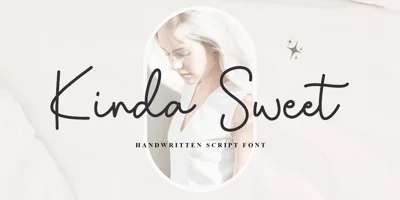
Kinda Sweet Font
Kinda Sweet Font is ideal for candy shop branding, bakery window displays, ice cream parlor menus, children's birthday invitations, cupcake business logos, sweet treat packaging, dessert blog headers, candy wrapper designs, valentine's day promotions, sugar confectionery marketing, donut shop signage, and playful lifestyle brands.
This font is exciting because it perfectly captures that irresistible charm and delightful sweetness that makes you smile just like your favorite childhood candy, featuring playful letterforms that bounce with the same cheerful energy and innocent joy found in sugar-dusted donuts and rainbow-colored lollipops. The whimsical character design strikes the perfect balance between casual friendliness and genuine sweetness, creating typography that feels approachable and fun without being overly saccharine or childish. Each letter radiates the kind of gentle sweetness and warm happiness that makes everyday moments feel a little more special and delightful.
The Kinda Sweet Font family includes regular weight with complete uppercase and lowercase alphabets, candy-inspired numerals, playful punctuation marks, and decorative elements reminiscent of confectionery designs and sweet treat aesthetics. Advanced versions may feature additional stylistic variants with enhanced playful effects, alternate characters that create bouncy connections, and sugary ornaments that amplify the delightfully sweet visual appeal.
Whether you're developing confectionery business branding, creating sweet lifestyle content, or designing playful marketing materials, Kinda Sweet Font provides the perfect amount of charm and sweetness your project needs to create smiles and warm hearts without overwhelming audiences. This typeface transforms ordinary text into delightful messages that spread joy and create positive emotional connections with viewers. The font's balanced sweetness makes it ideal for brands that want to be approachable and friendly while maintaining professional credibility. Sweet business owners and playful designers will love how this font brings authentic charm to their work with its genuinely sweet and perfectly balanced character that appeals to both children and adults.